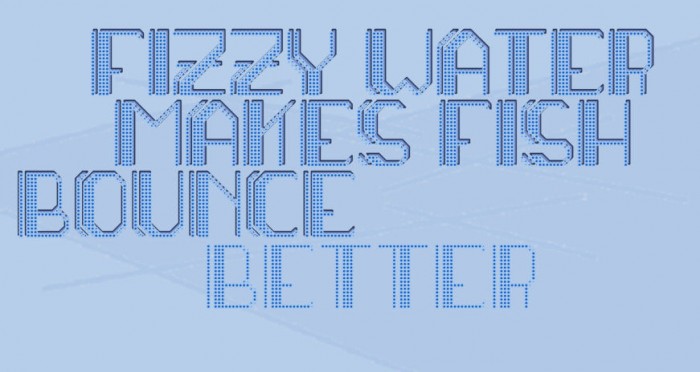
Raysan 'decorated' with Raysan Dot. Yes, Raysan Dot dots make good bubbles ;)
At distance, the sample image looks like a texture of some glass bottle (for an unidentified peppermint beverage… adding big droplets would make me feel even more thirsty!)^^
@ dpla: I hadn't thought of that... not so much sensible Vittel menthe  with a jambon-beurre but more like a Get27 Badoit and a 5-course menu ;)
Jambon-beurre, Vittel; Get 27, Badoit/Champagne… I see. We often have a splendid sunset on La Tour Eiffel -fog apart-, here for free… but your "Raysan Dot" sounds more devoted to its touristic restaurant Le Jules Verne.
May I suggest: alternates with loose bubbles (even in spirals, but always upwards); star (not the asterisk, but the one for the luxury hotels); currency symbols ("€$" to begin with); lowercase (for many units), degree symbol…?